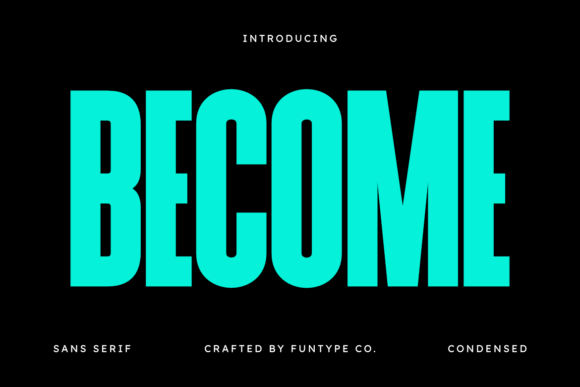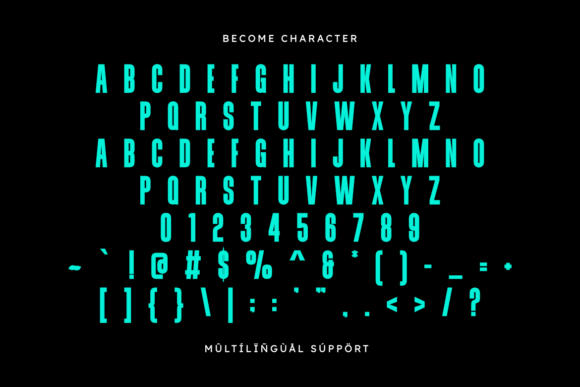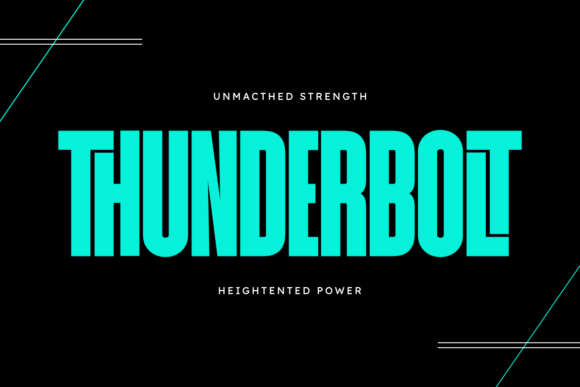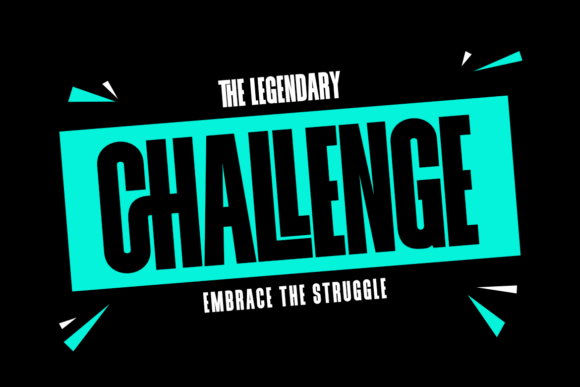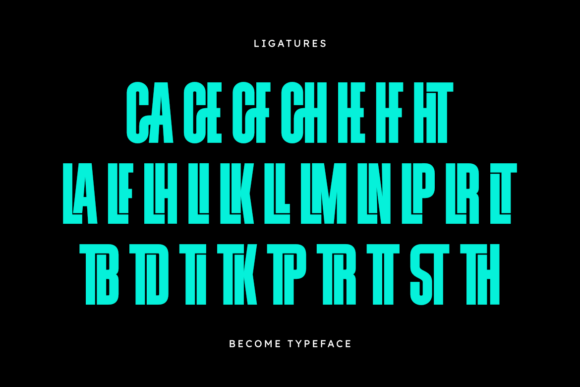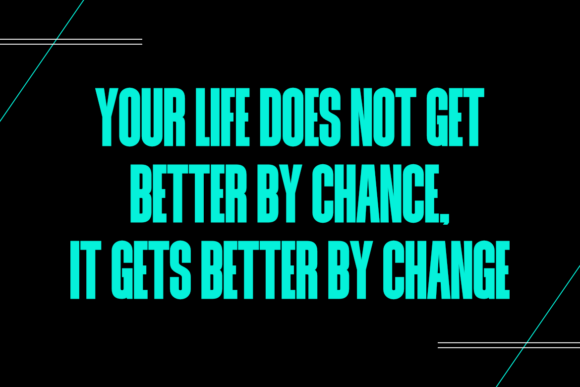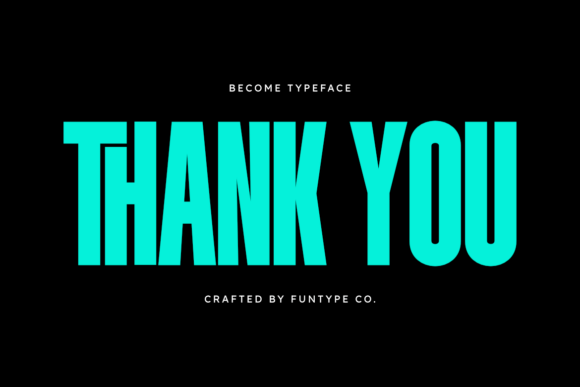
Unlock the Power of Headline Dominance
Have you ever stared at a blank page, struggling to come up with the perfect design to capture your audience’s attention? The moment of truth arrives when you need to create a bold, attention-grabbing headline that leaves a lasting impression. That’s where the Become Font comes in – a game-changing, ultra-bold display sans serif font designed to make your message stand out in a crowded space.
Become Font is more than just a font – it’s a statement piece that demands attention. Its solid, blocky structure and tight spacing give it a powerful, modern, and industrial feel that’s perfect for aggressive branding, sports and e-sports graphics, and large format titles. By using the Become Font, you’ll be able to create a confident and loud aesthetic that’s sure to dominate the space.
As a designer, you know the importance of choosing the right font to convey your message. With the Become Font, you’ll have the versatility and assertiveness you need to take your designs to the next level.
Become Font Key Features
- Unique Character Set: Become Font includes a unique set of characters, including extended Latin, Cyrillic, and Greek scripts, making it suitable for use in multilingual applications.
- Advanced Typography: Become Font features advanced typography capabilities, including ligatures, swashes, and contextual alternates, allowing for highly customized and sophisticated typography.
Designer Review: Become Font
Overall, I was excited to dive into the Become Font and see what it had to offer. ✨ One of the things that works well is its versatility. The font is suitable for both digital and print use cases, making it a great choice for designers looking for a single font that can adapt to various mediums.
- ✨ Customizable weight and width options
- ✨ High legibility in both digital and print formats
- ✨ Supports a wide range of languages
However, there are some limitations that need to be considered. ⚠️ The font’s aesthetic may not be to everyone’s taste, and some users may find it too generic or bland. Additionally, the font’s character set may not be comprehensive enough for more complex projects.
- ⚠️ Limited character set options for complex projects
- ⚠️ May not appeal to users with more unique design preferences
Overall, I would give the Become Font 3.5 out of 5 stars. While it’s a solid choice for many designers, its limitations may prevent it from standing out in more competitive design projects.
Tips for Getting the Most Out of Become Font
For best results, use Become Font in a bold or italic style to add emphasis to your text. Experiment with different font sizes and colors to create visual interest. You can also use Become Font in combination with other fonts to create a unique visual effect.
Become Font is ideal for creating eye-catching headlines, titles, or logos. It’s also great for adding a personal touch to your social media graphics, presentations, or documents. Use it to create a sense of drama or sophistication, depending on the context and style of your project.
Q: Is the Become Font available in different languages?
The Become Font is available in a standard Latin character set, and includes support for many languages, including English, Spanish, French, German, Italian, and many others. However, the font may not include support for non-Latin scripts, such as Chinese, Japanese, or Arabic. If you need a font with support for a specific language or script, please contact the font vendor for more information.